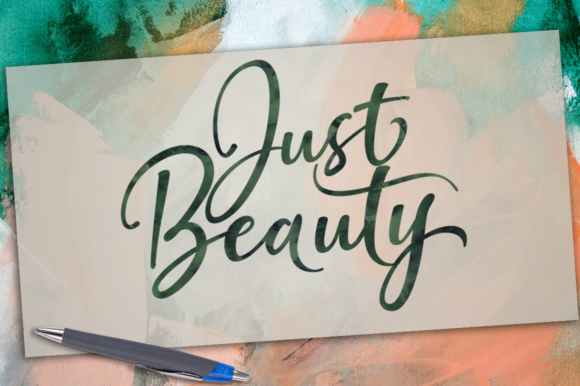
Behold, the Just Beauty Font - a calligraphic masterpiece crafted by the ingenious Groens Studio. This exquisite script font exudes elegance, delicacy, and a touch of whimsy, making it the perfect choice for expressing your creativity in a myriad of ways.
With its charming handwritten style and captivating swashes, Just Beauty captivates the eye and ignites the imagination. Each letter dances across the page with a graceful fluidity, creating a visually stunning effect that is sure to leave a lasting impression.
Unleash your inner artist and explore the endless possibilities that await with Just Beauty. Its versatility knows no bounds, lending itself effortlessly to letterheads, titles, invitations, posters, and a plethora of other design projects. Whether you're a seasoned designer or just starting your creative journey, this font is your gateway to crafting truly captivating designs that speak volumes.
Immerse yourself in the world of Just Beauty and let your imagination soar. This font is your passport to creating designs that resonate with your audience, capturing their attention and leaving them yearning for more. Embrace the beauty of calligraphy and watch as your creative visions come to life with unparalleled elegance and grace.
Crafted with meticulous attention to detail, Just Beauty features PUA encoding, ensuring seamless access to all its glyphs and swashes. This user-friendly feature empowers you to unleash your creativity without limitations, allowing you to effortlessly incorporate intricate embellishments and flourishes into your designs.
Elevate your designs to new heights with Just Beauty, the font that embodies sophistication, artistry, and boundless creative potential. Its enchanting allure will captivate your audience, leaving them spellbound by the sheer beauty of your creations.
Embark on a creative odyssey with Just Beauty, where your imagination reigns supreme. Experience the joy of effortlessly crafting designs that exude elegance, charm, and a touch of magic. This font is your gateway to unlocking a world of creative possibilities, where your designs will shine with unparalleled brilliance.